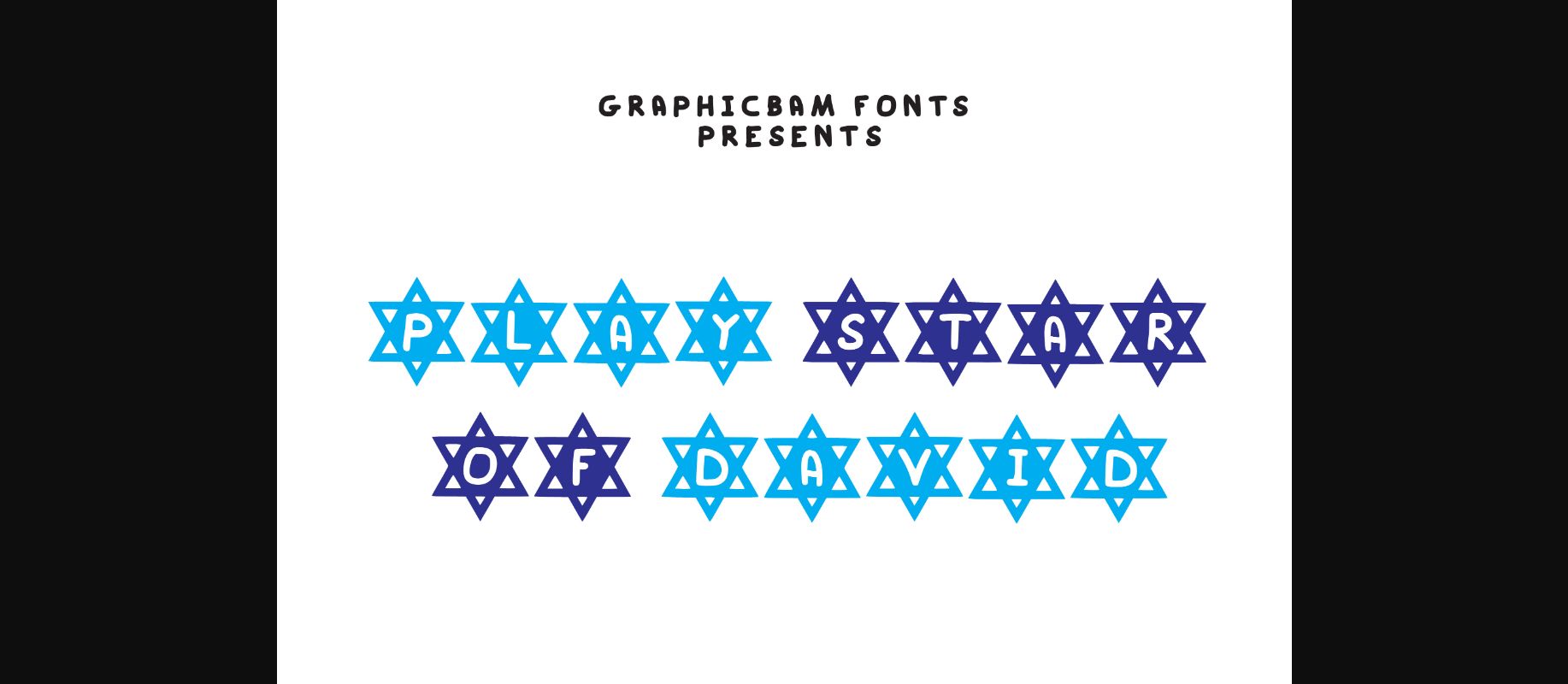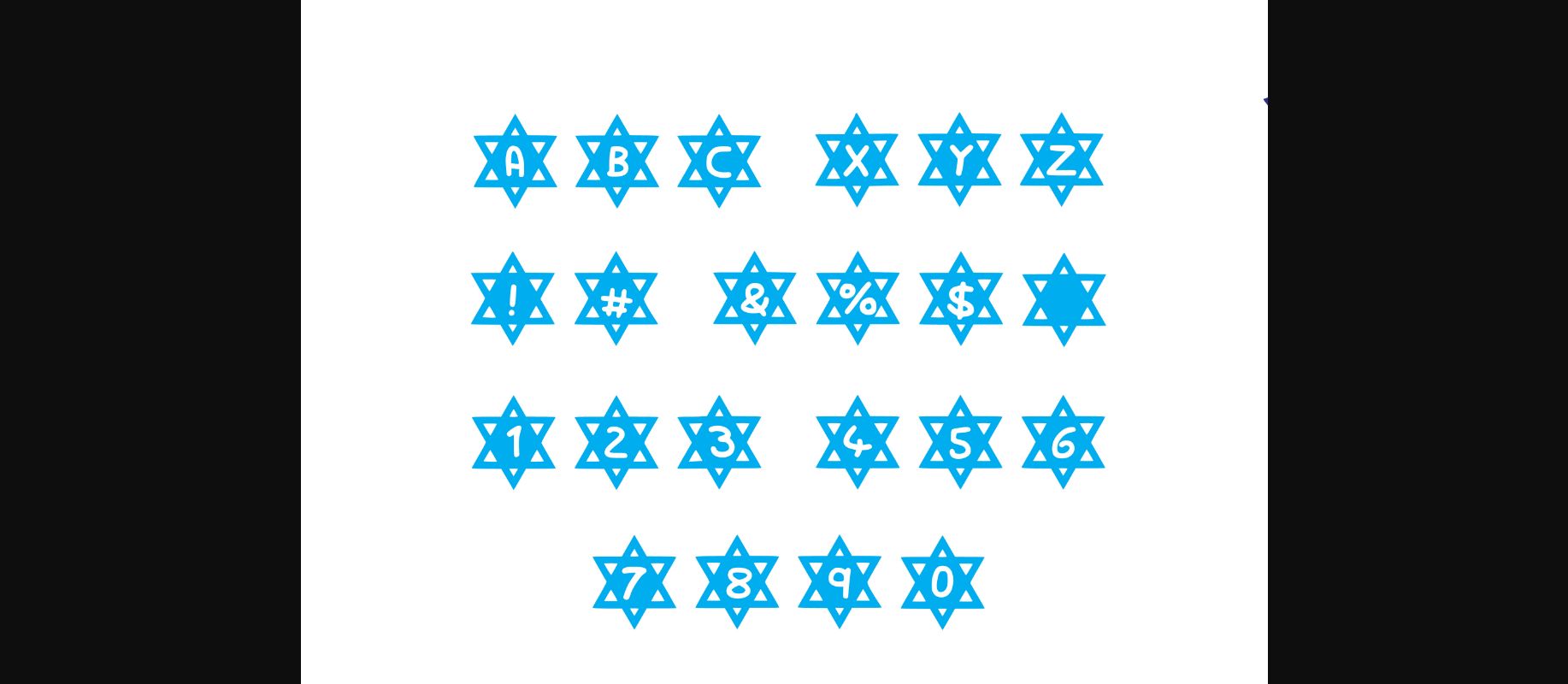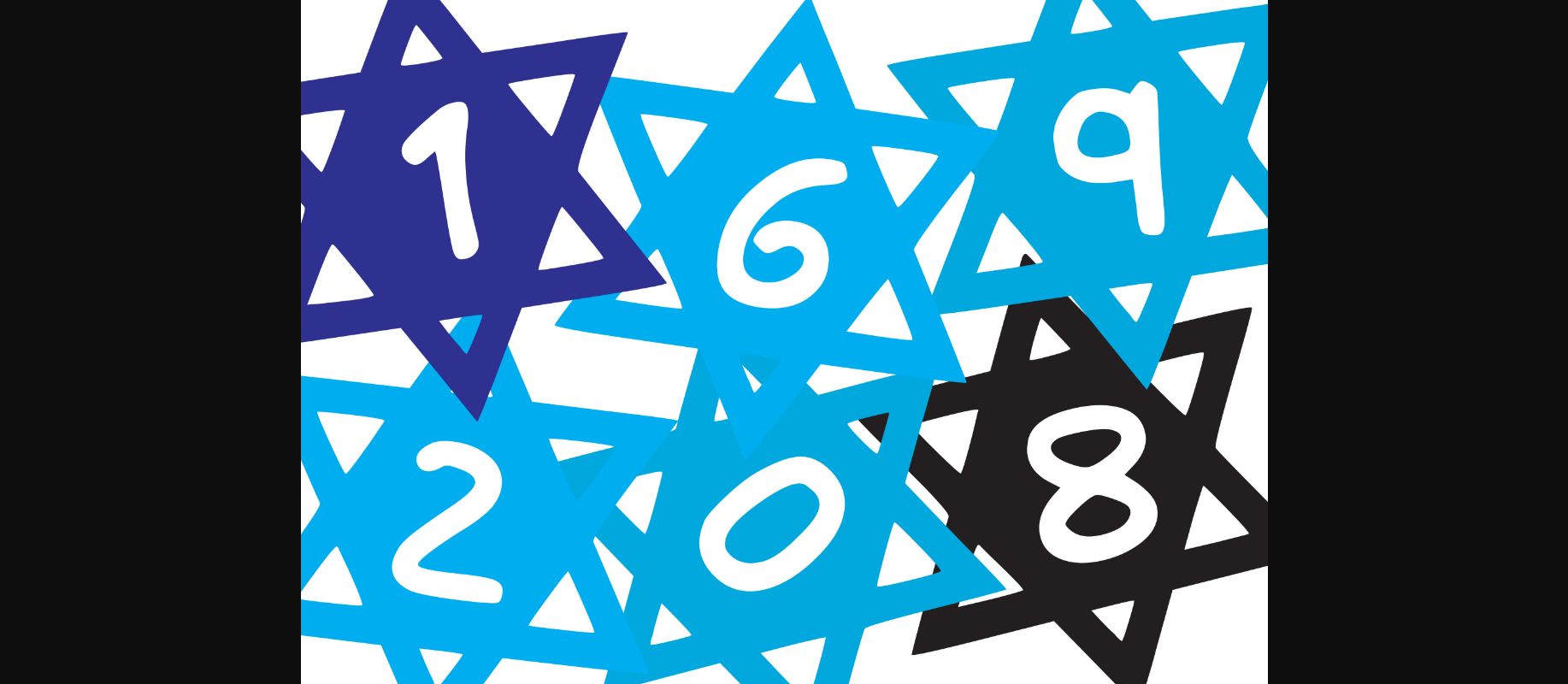
Play Star of David Font
About Play Star of David Font
Play Star of David is a unique decorative font, each letter being encased in a hexagram. This is the perfect font for making original and outstanding designs.